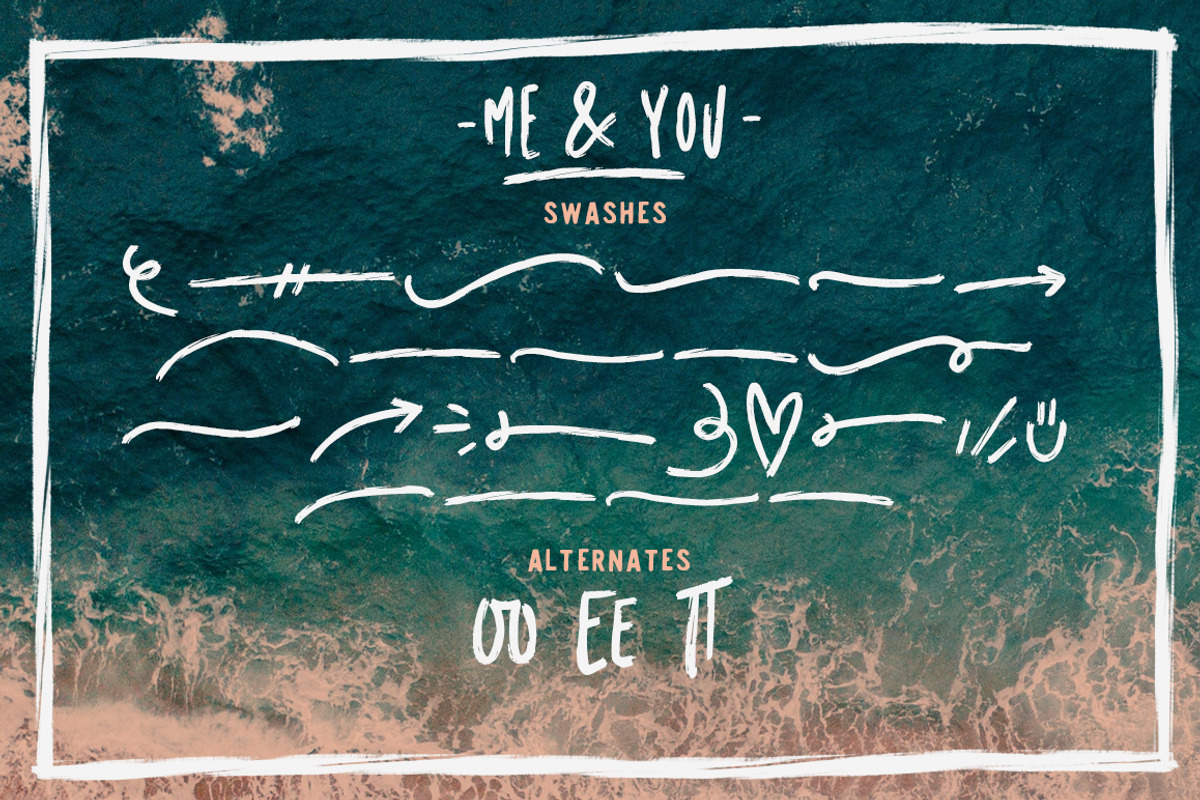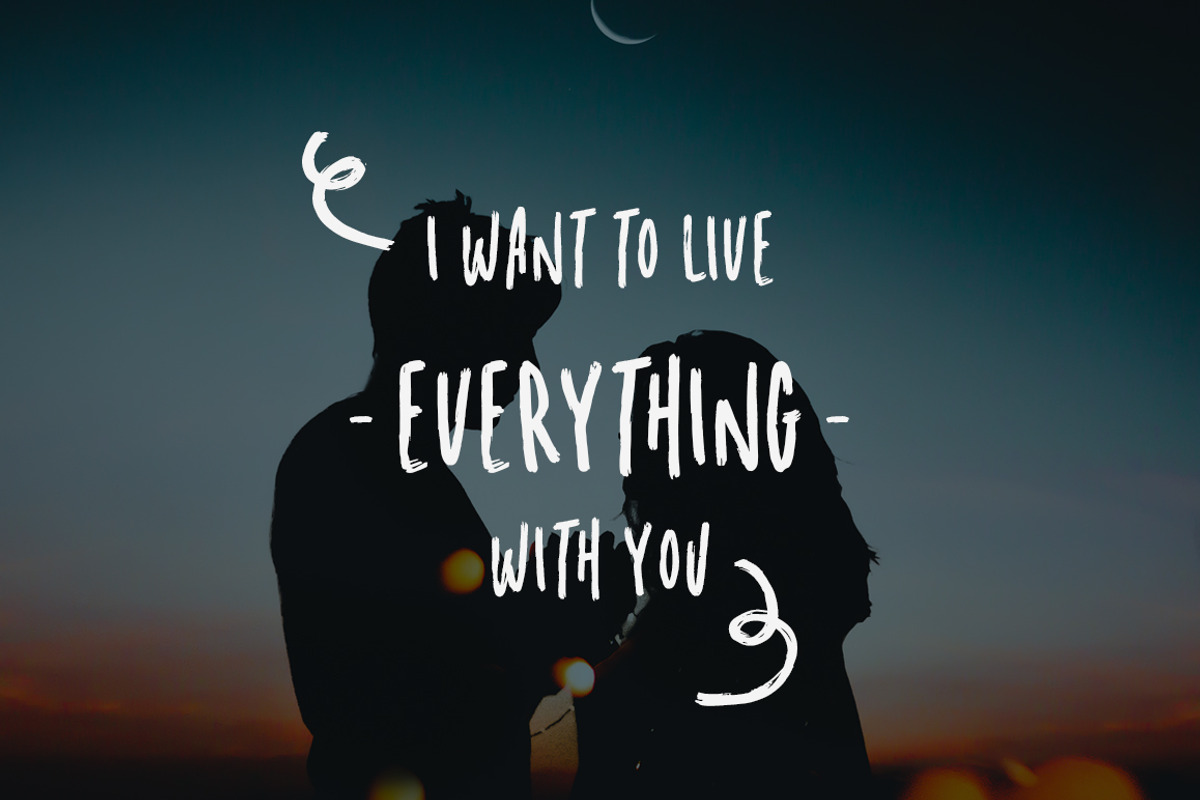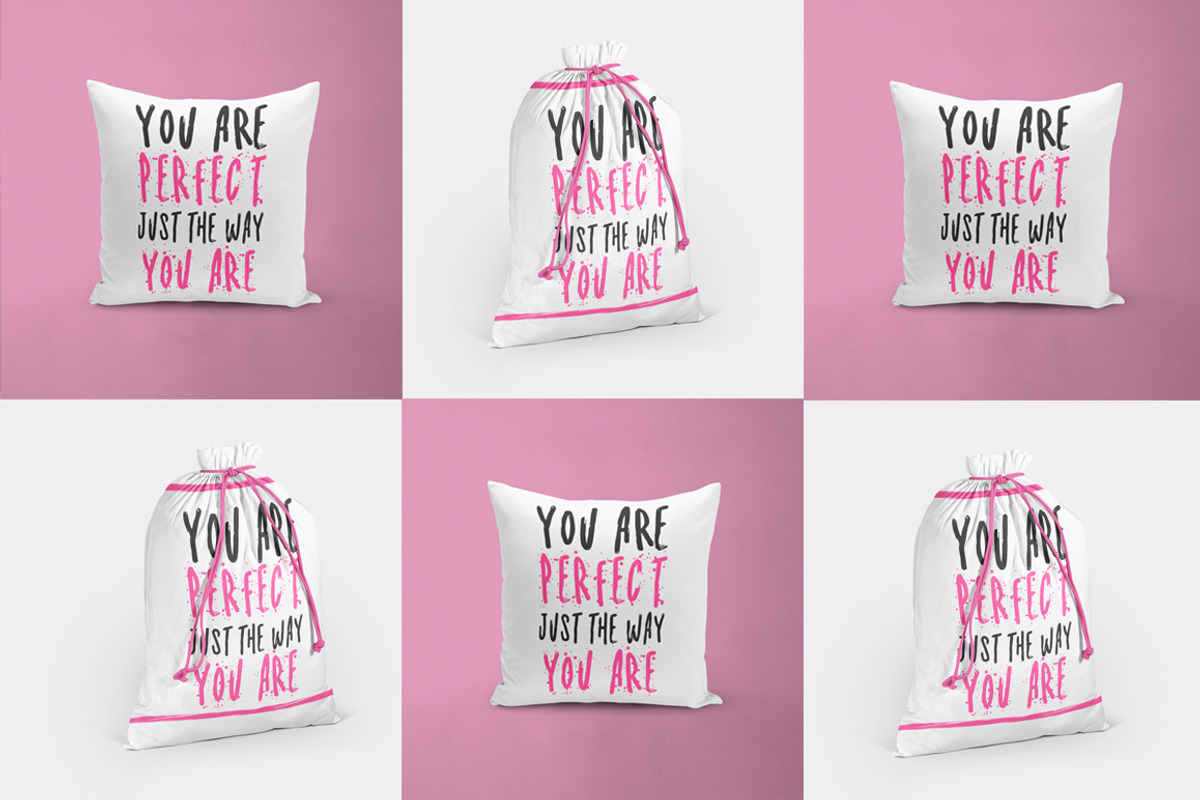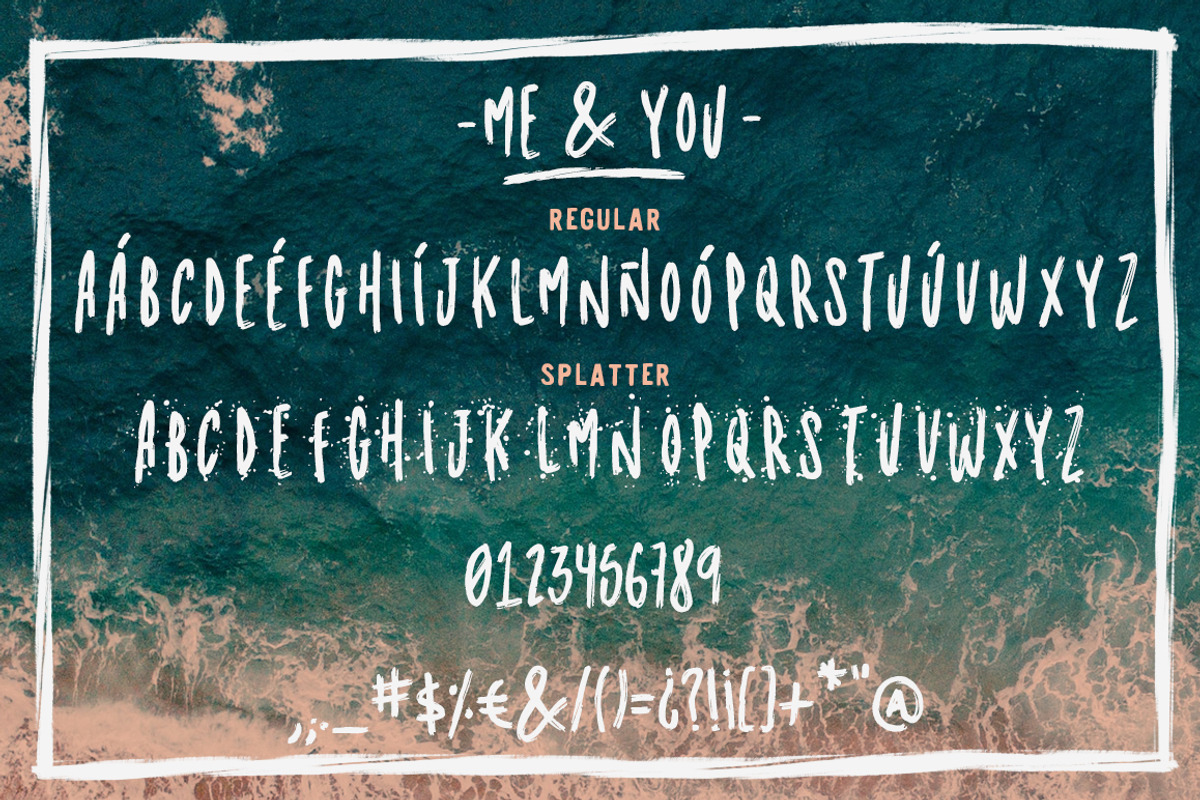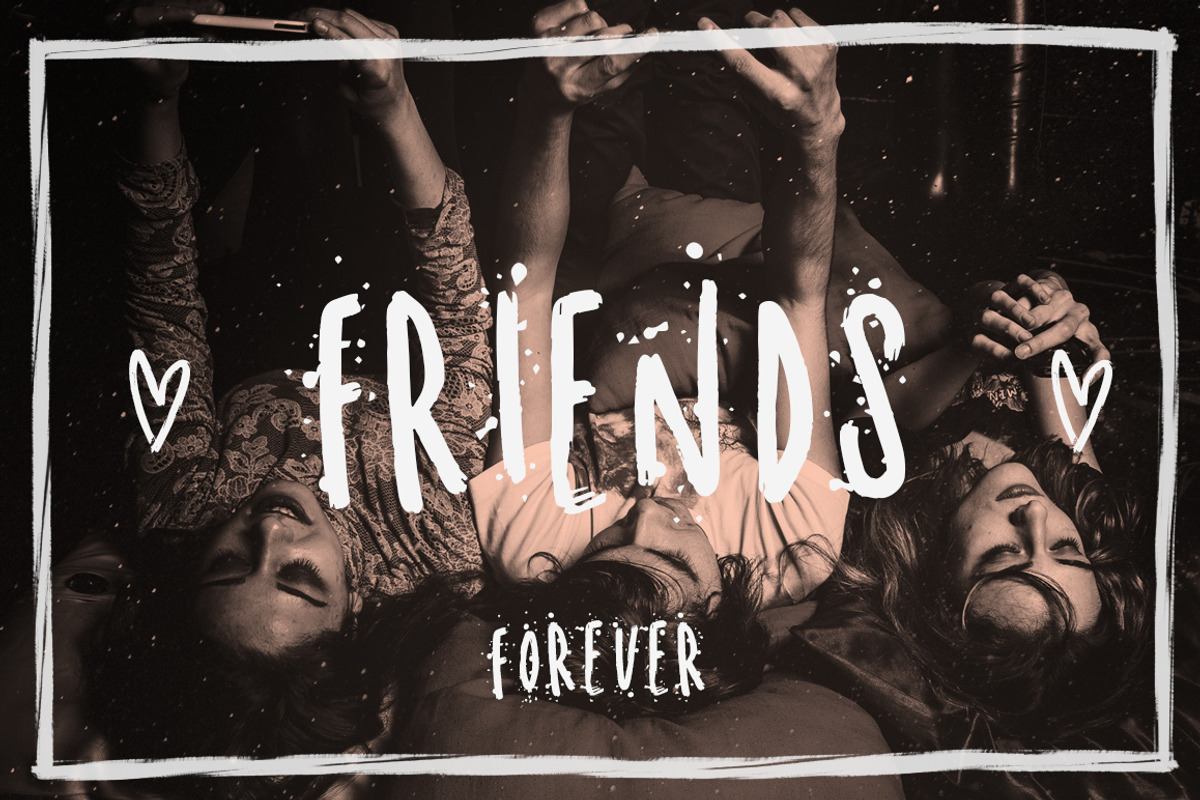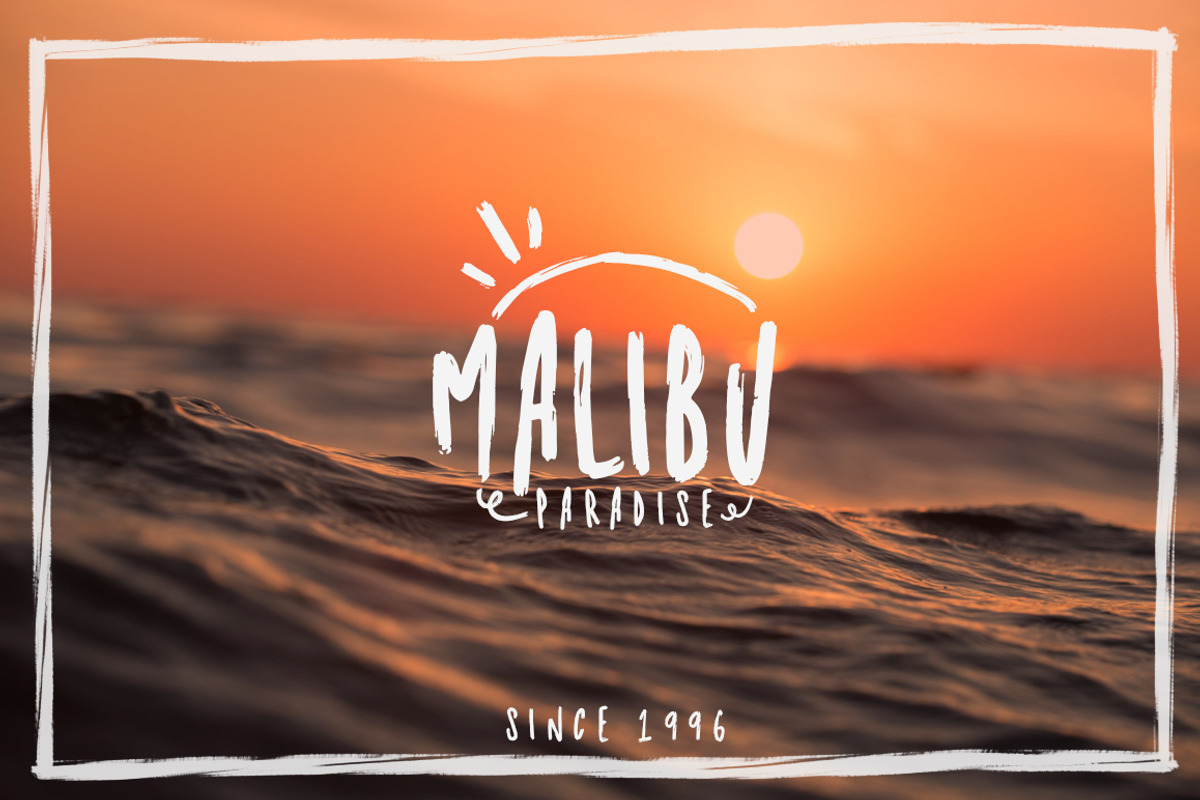
Me and you | Dry Marker font + extras!
And just before 2017 ends I want to present this new and unique product. This font is 100% handmade and that's why it has that dry marker texture. Don't miss out on this feminine and stylish font pack that contains a regular style, splatter style and another one full with swashes and doodles.
It has alternates to give the font a cute a unique touch